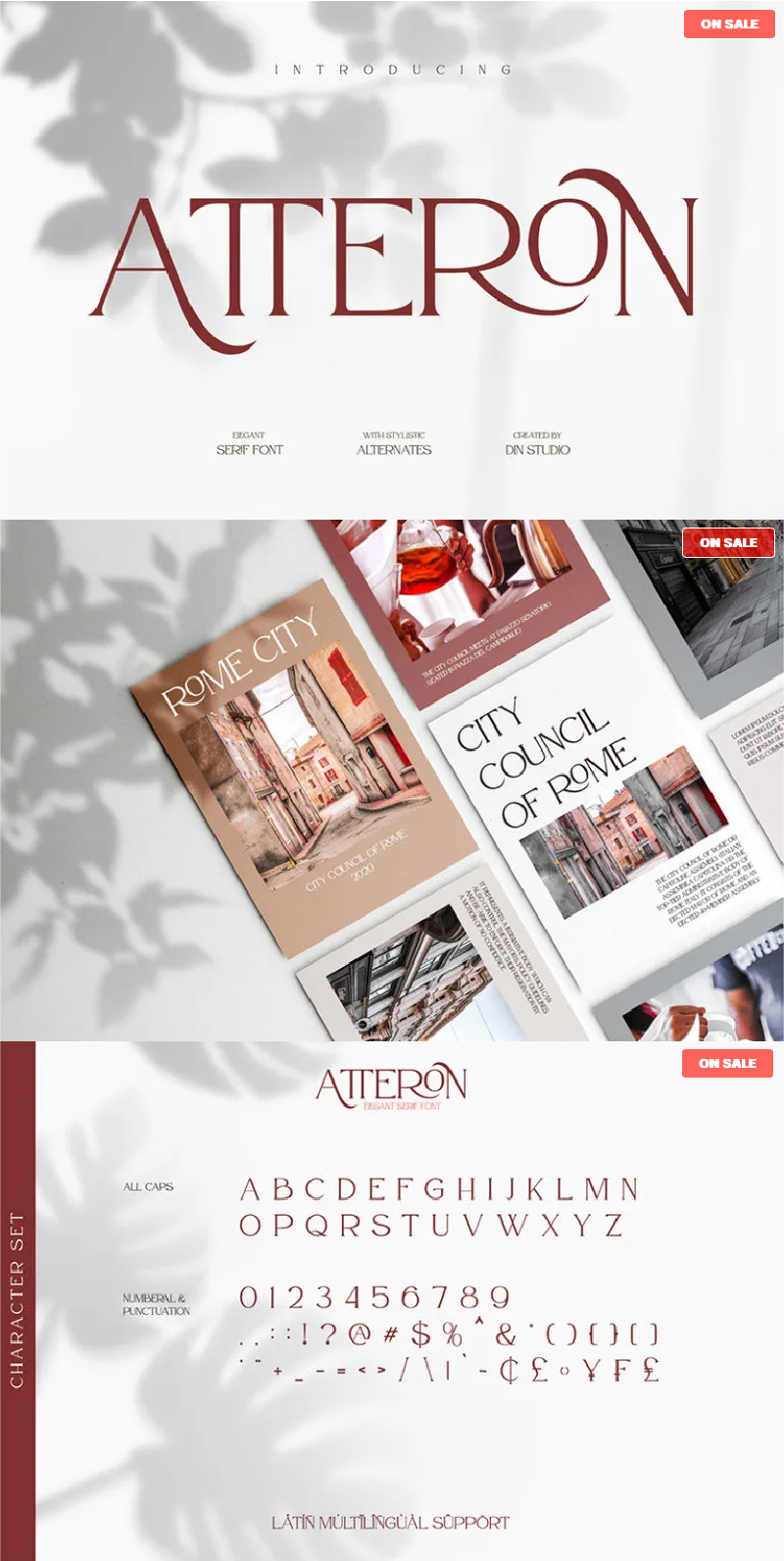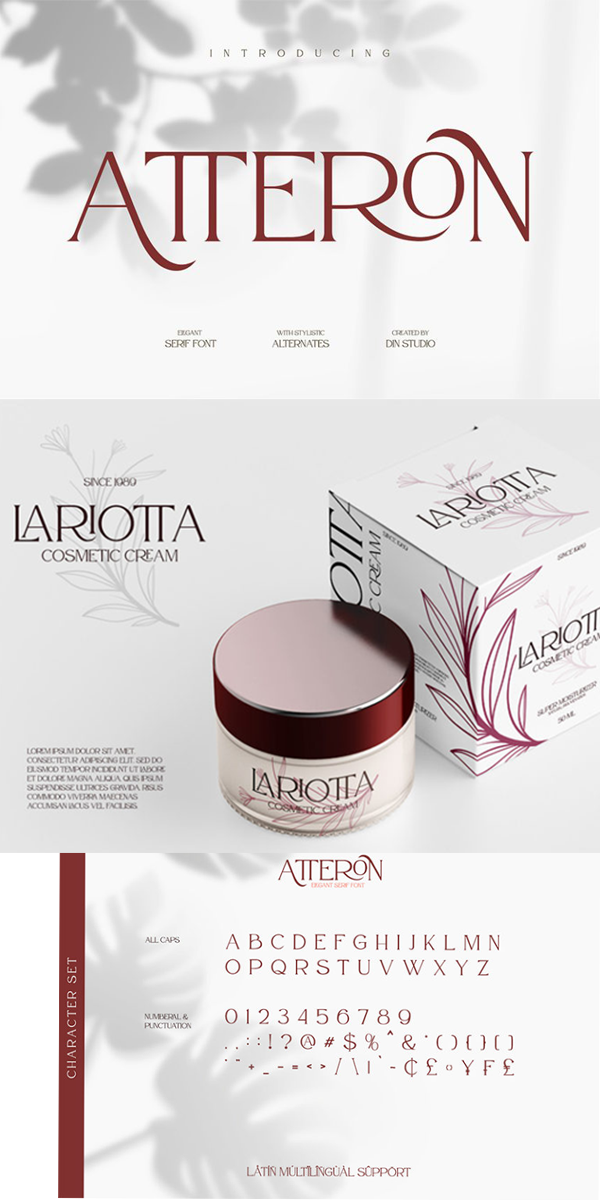
Atteron Font
About Atteron
Atteron is an elegant serif font made for any professional project brandings. It is the best for logos, brandings and quotes. Every letter has a unique and beautiful touch. See the previews above to get some inspiration on how you can use them. Happy designing!
-Beautiful Alternates